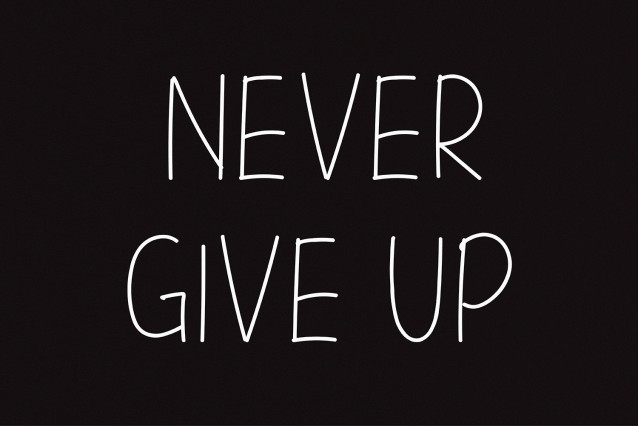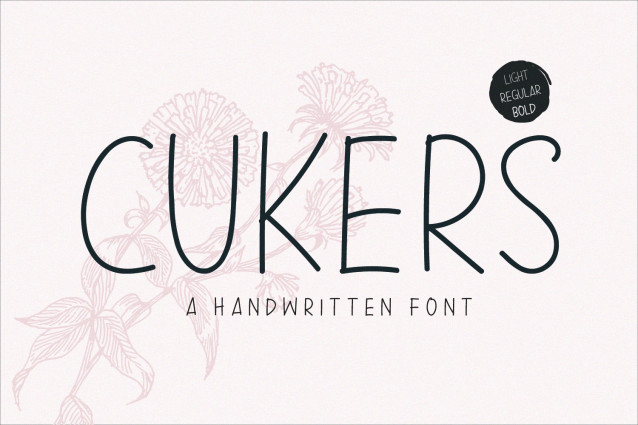
Cukers Script Font
Cukers Script Font – A hand-drawn sans serif font, every single letter has been carefully crafted to make your text looks beautiful. Available in three styles, light , regular and bold, Cukers is great for a variety of print and digital projects.